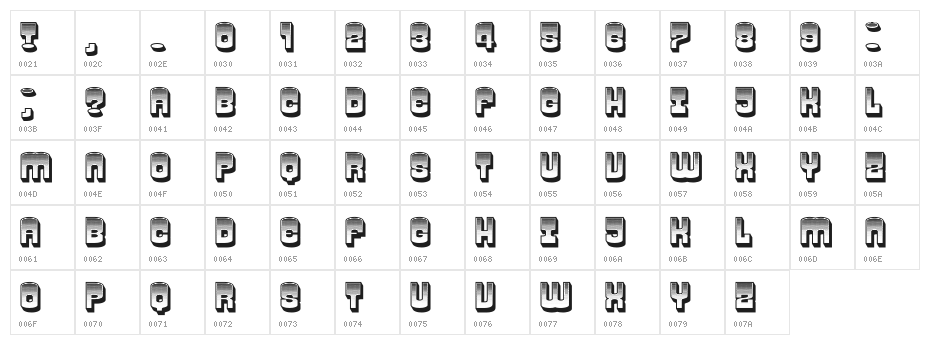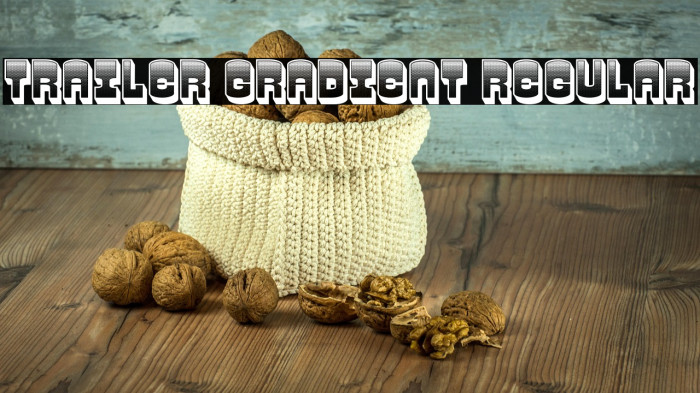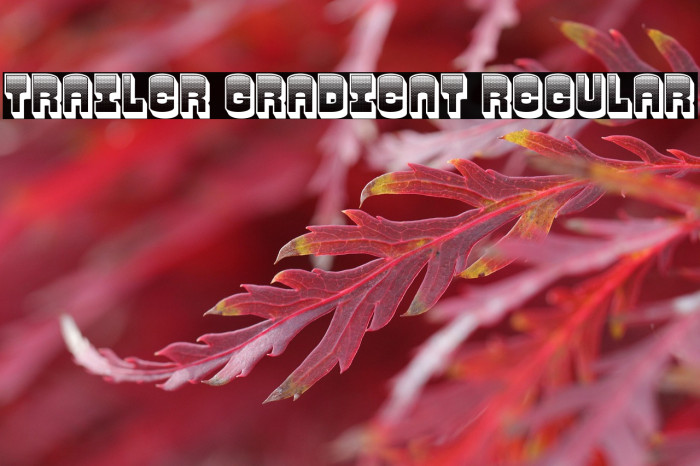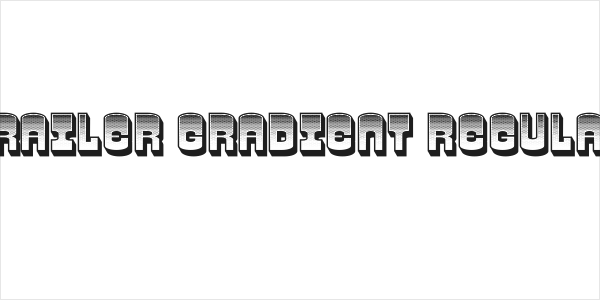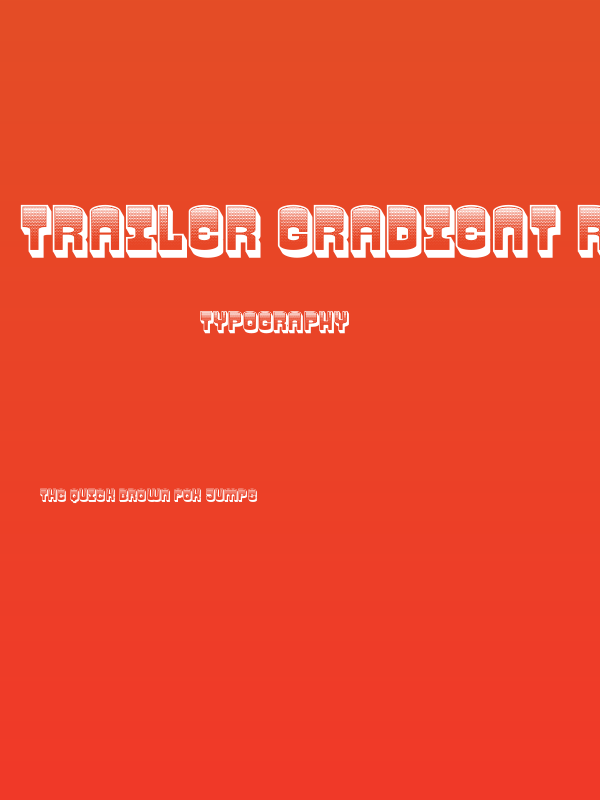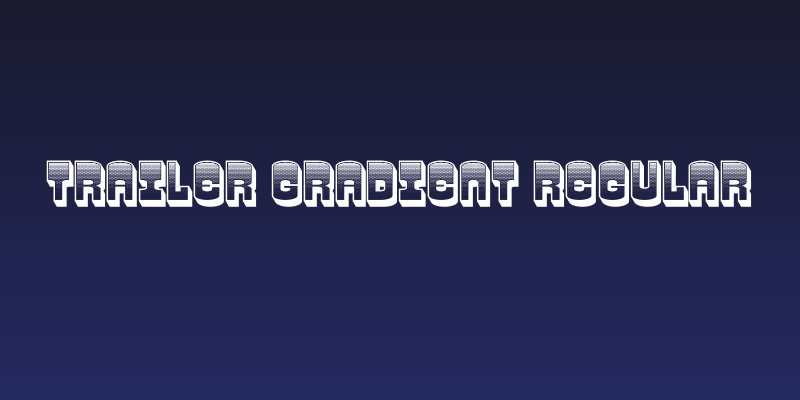
Trailer Gradient Regular Font
Trailer Gradient Regular Description
This font features a bold, three-dimensional design with a gradient effect that gives it a distinct, eye-catching appearance. The letters are blocky and robust, with a shadow effect that adds depth and dimension. The gradient within each character transitions smoothly from dark to light, enhancing the visual impact. The font is highly decorative, making it suitable for attention-grabbing headlines or titles. Its unique style is reminiscent of retro or vintage designs, yet it maintains a modern appeal through its clean lines and structured form.
| Overall Style | Retro, Modern |
| Proposed Projects | Ideal for posters, logos, video game titles, and any project needing a striking, vintage-inspired look. |